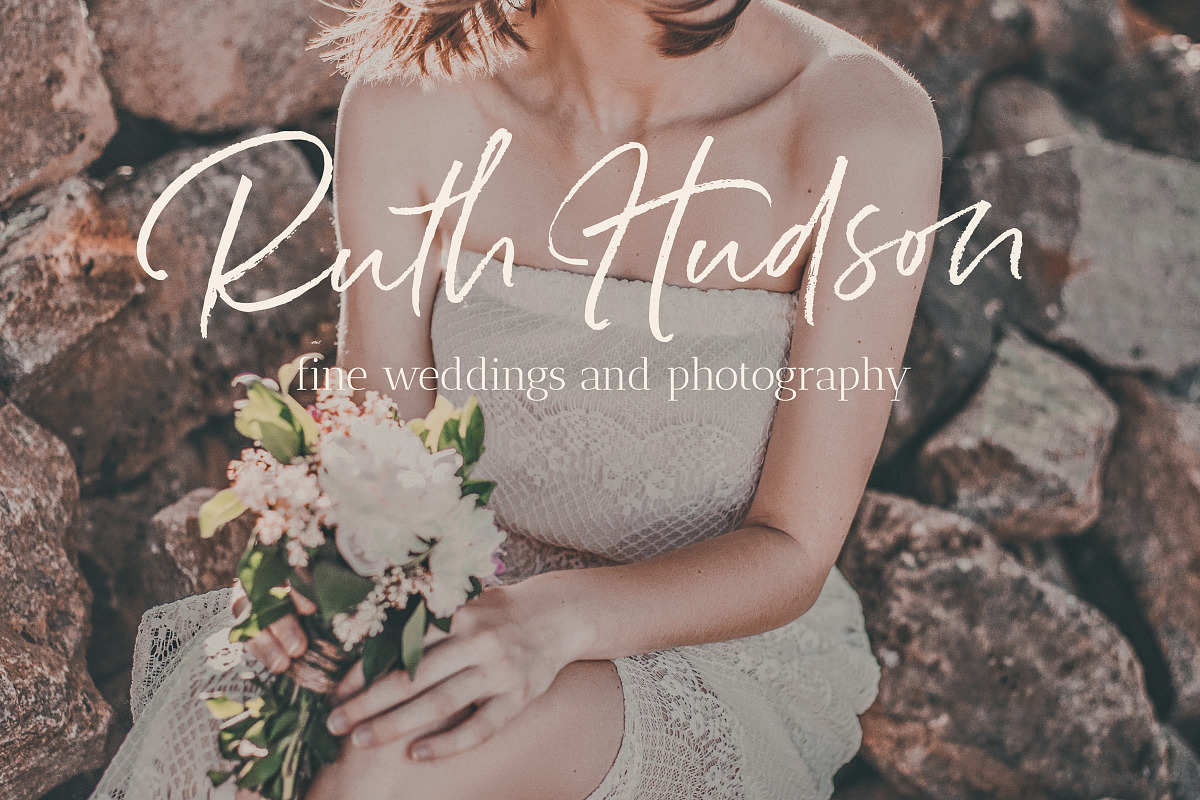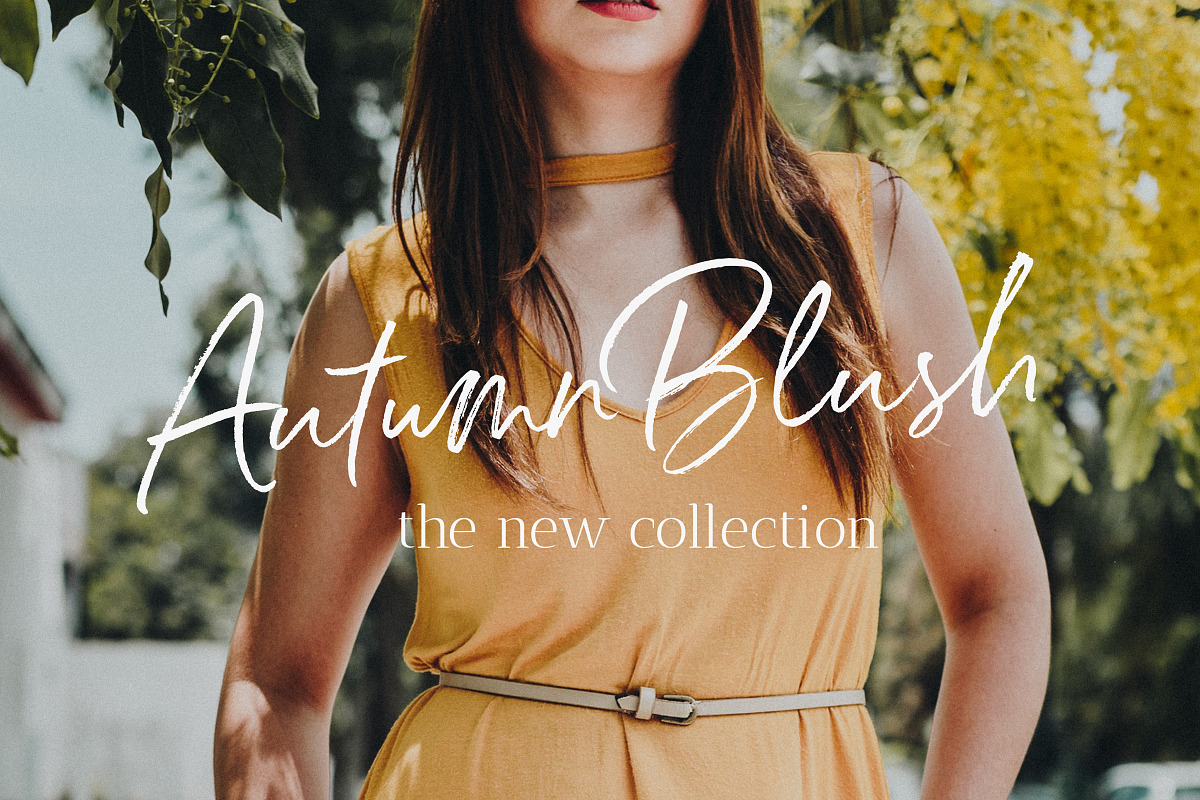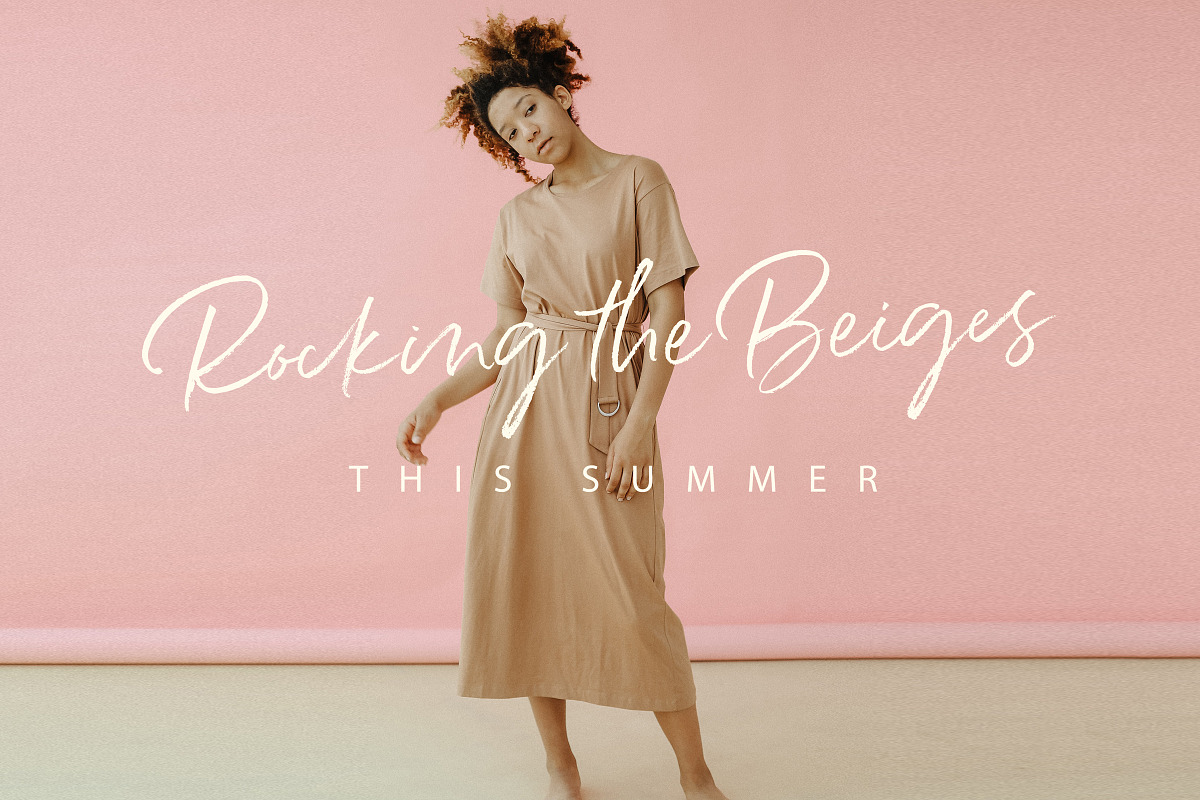
Slip into something a little more sophisticated with “Belluga” – A stylish, fresh new handwritten brush script…with a touch of class, and of course, some fabulous extras.
Belluga Script was created to look as close to a natural handwritten script as possible by including over 80 ligatures, decorative swashes, and a full set of lowercase alternates. Love the font, but need a SMOOTH version – no problem – it’s included. With built in opentype features, this script comes to life as if you are writing it yourself.